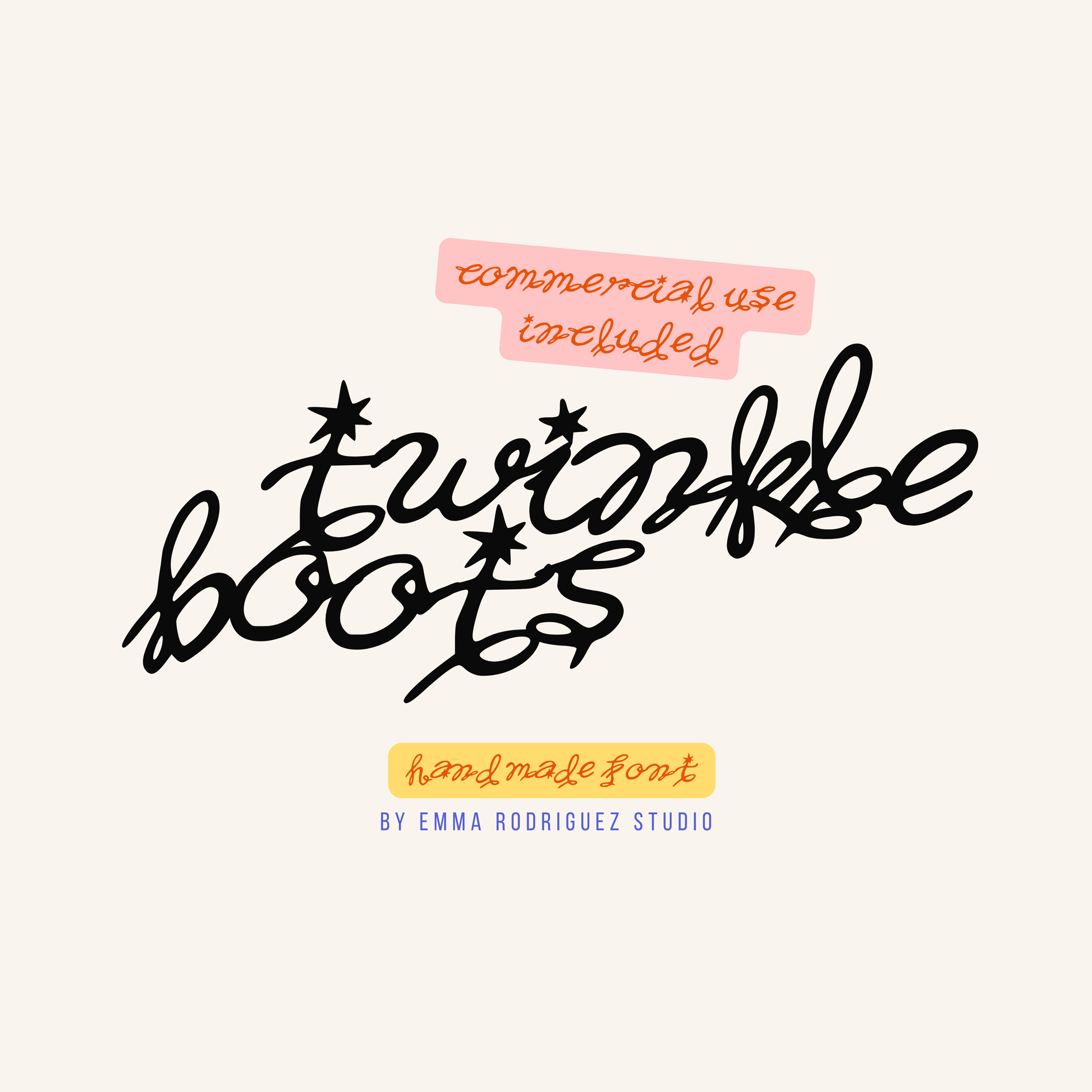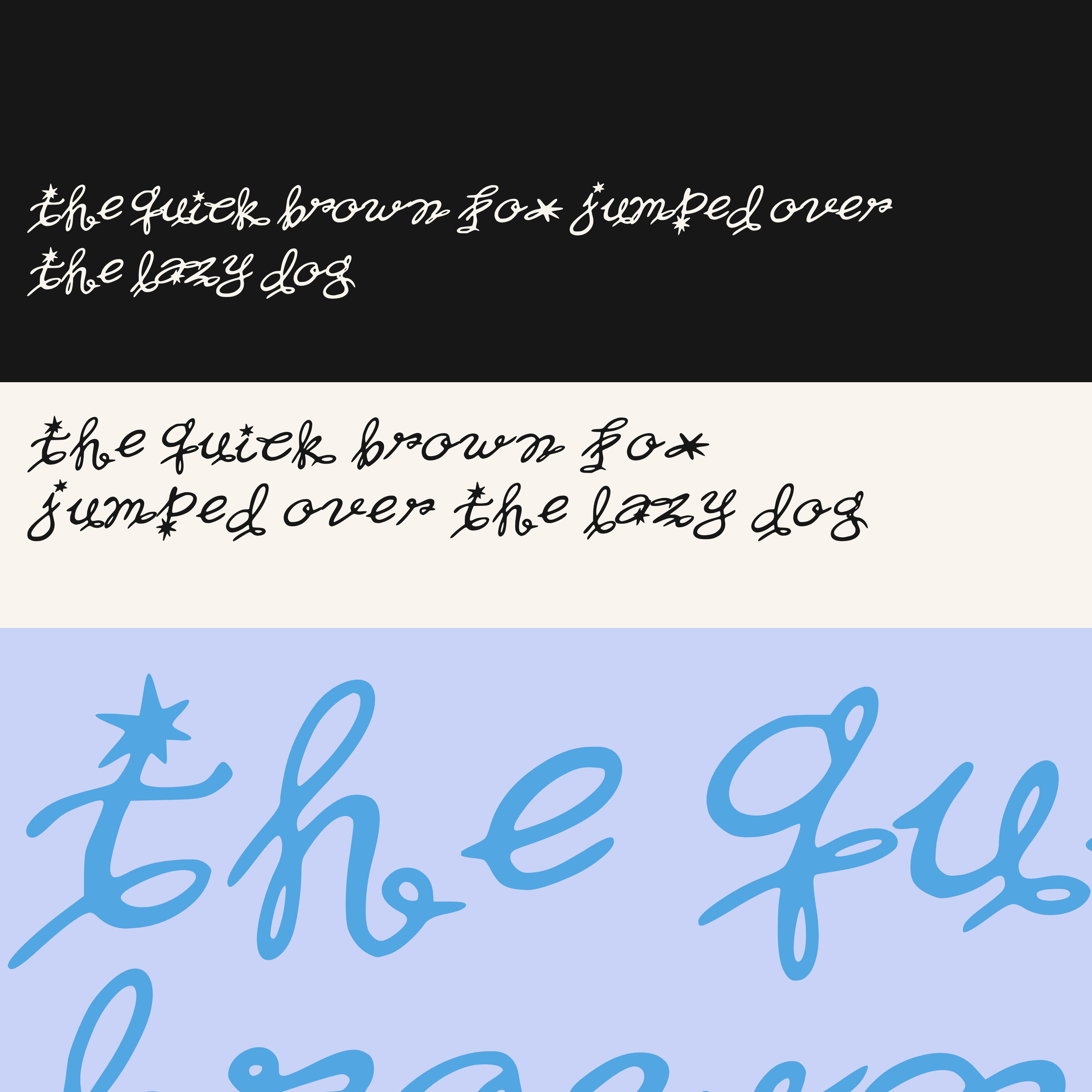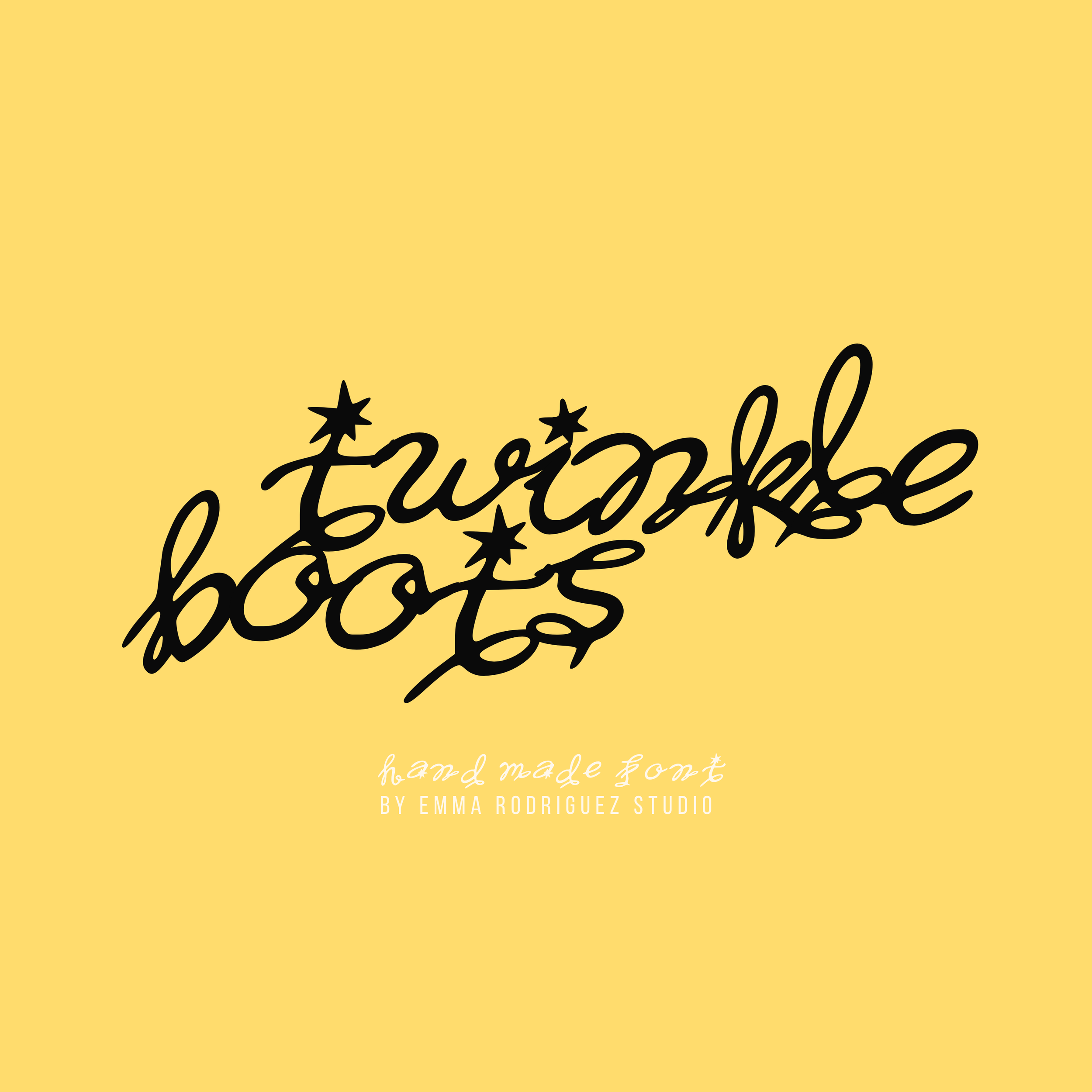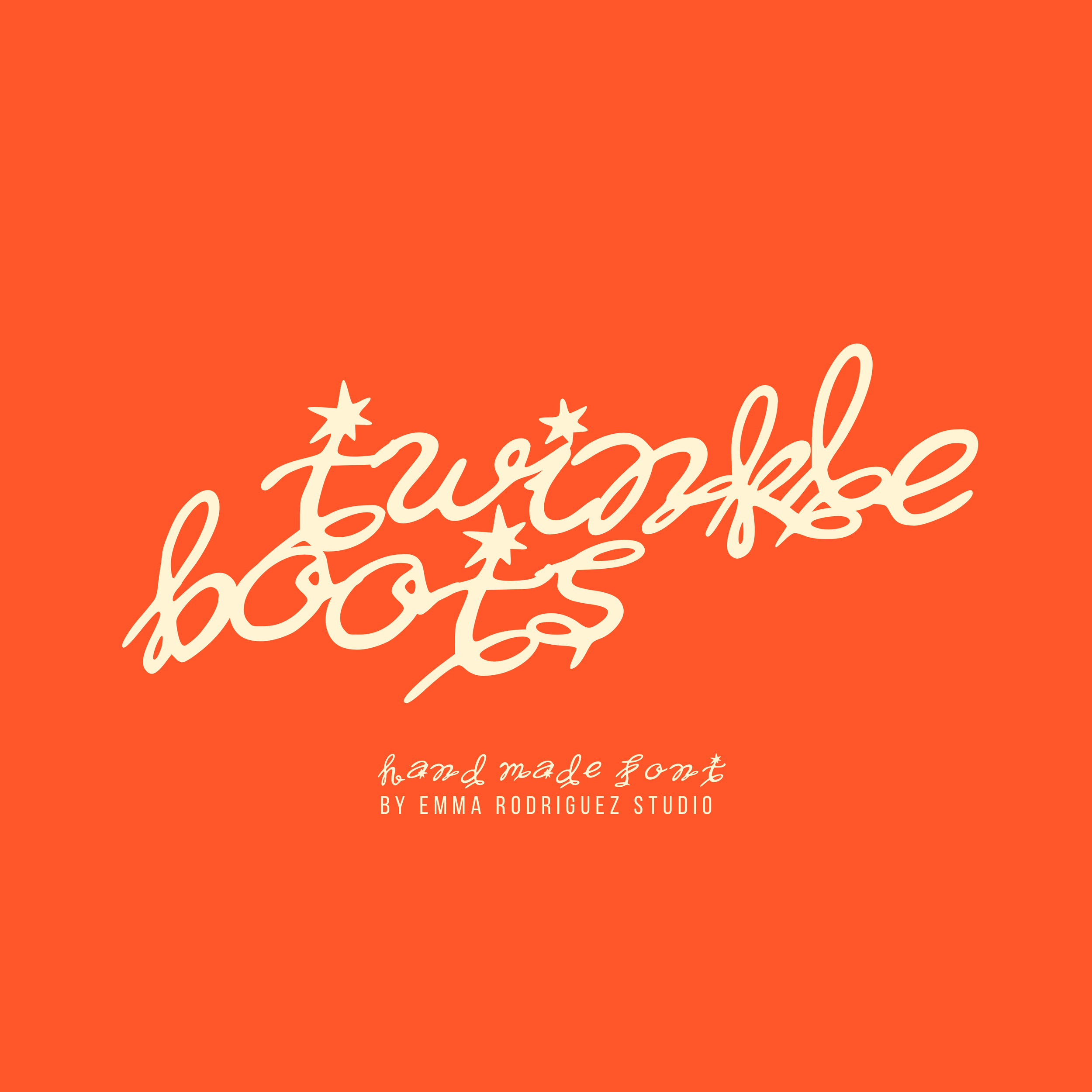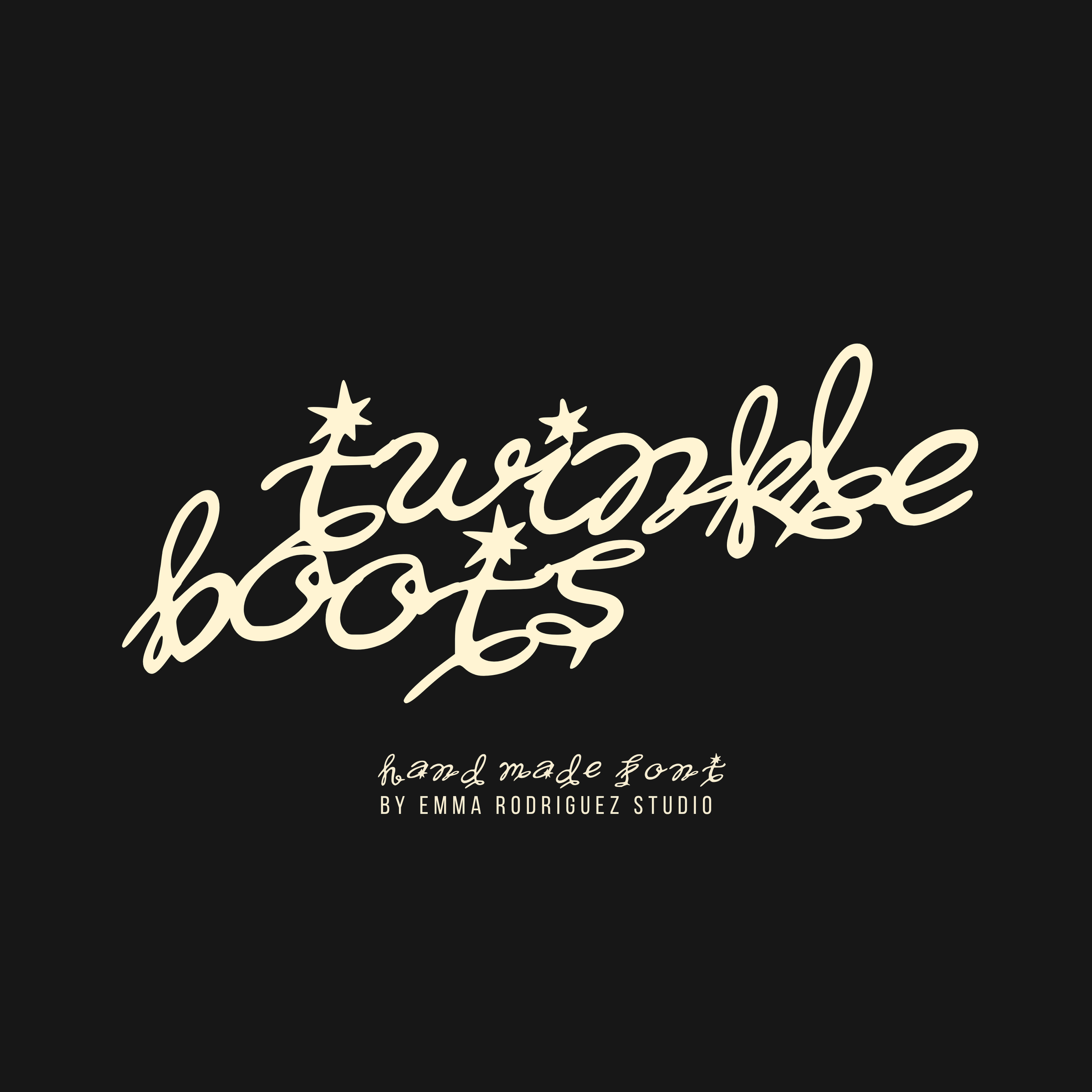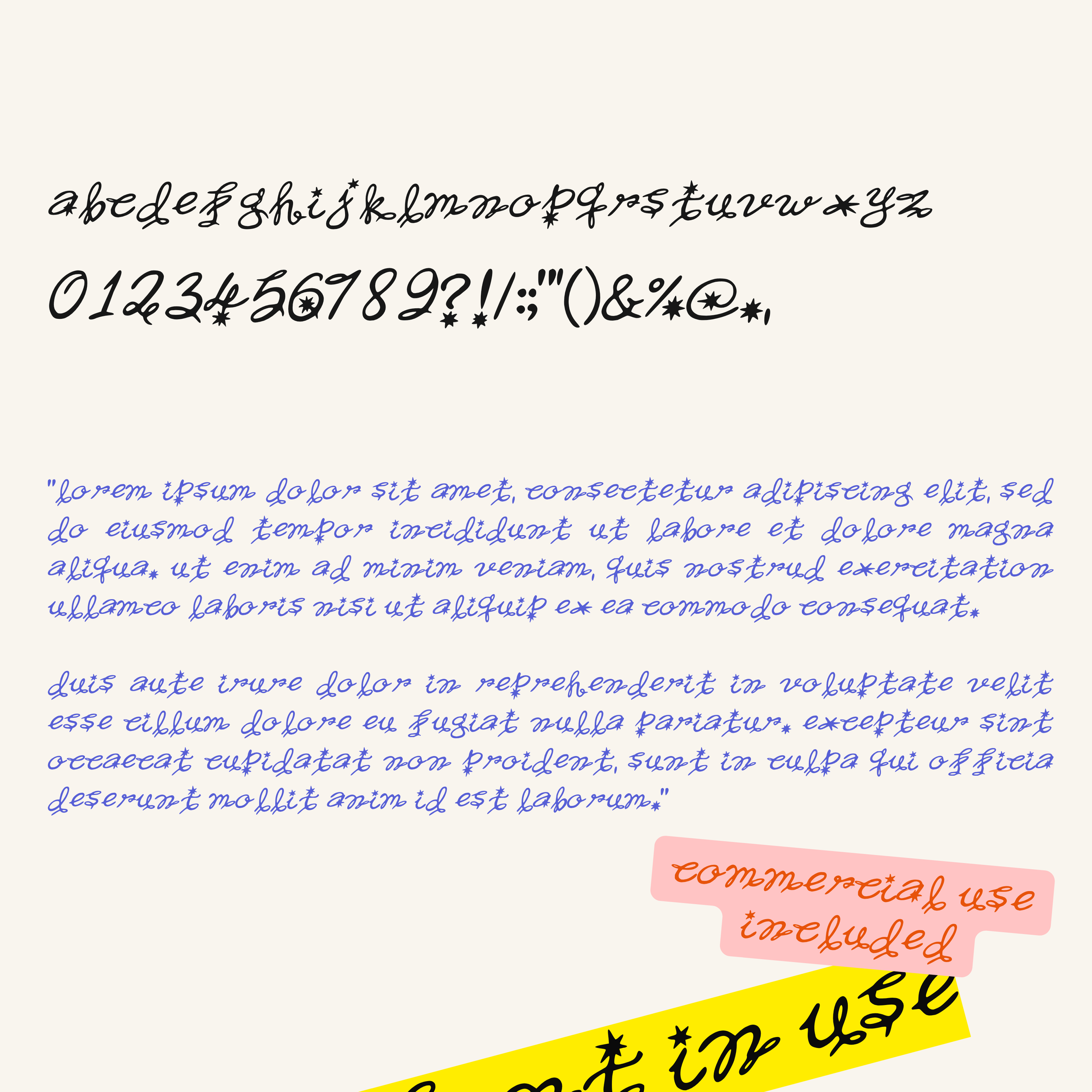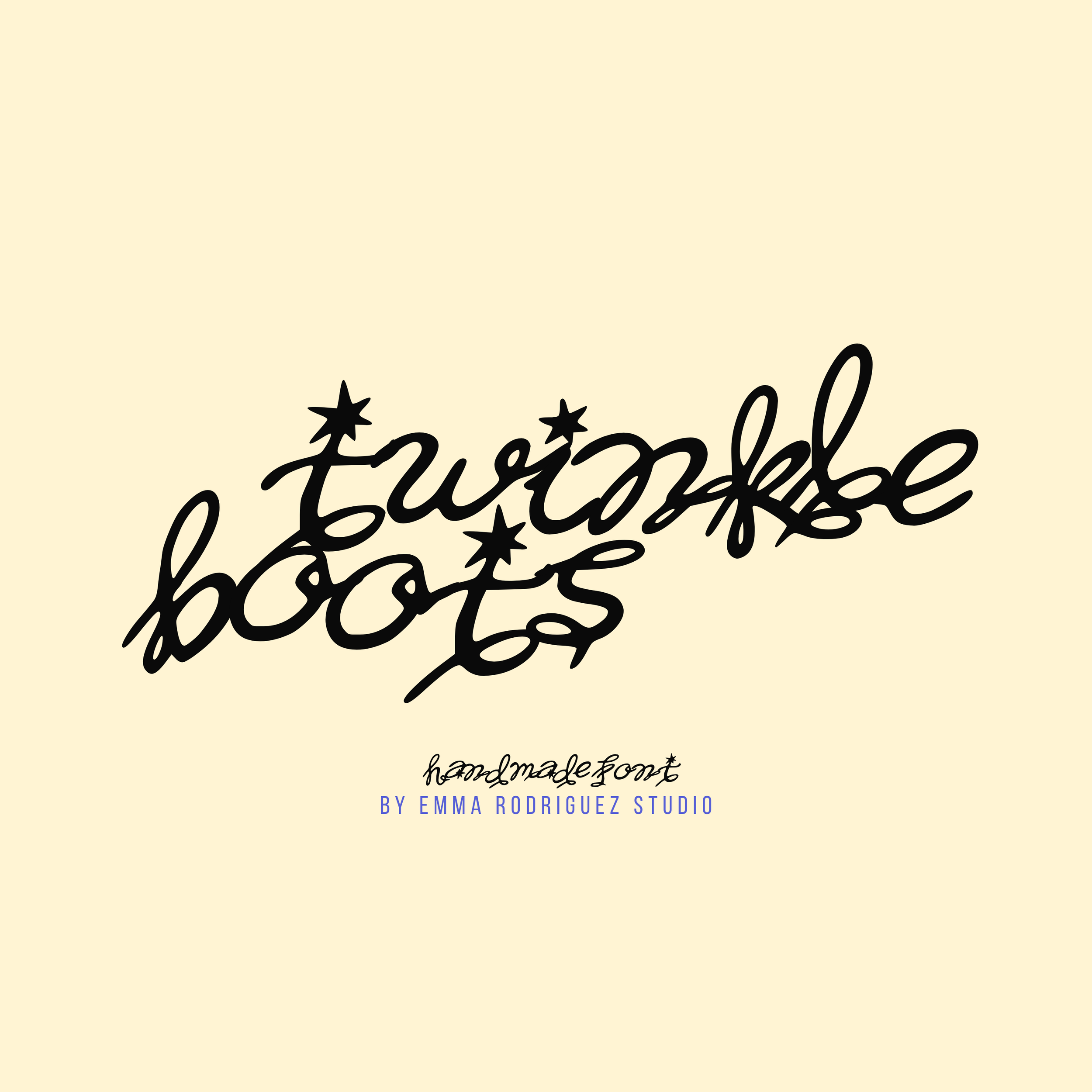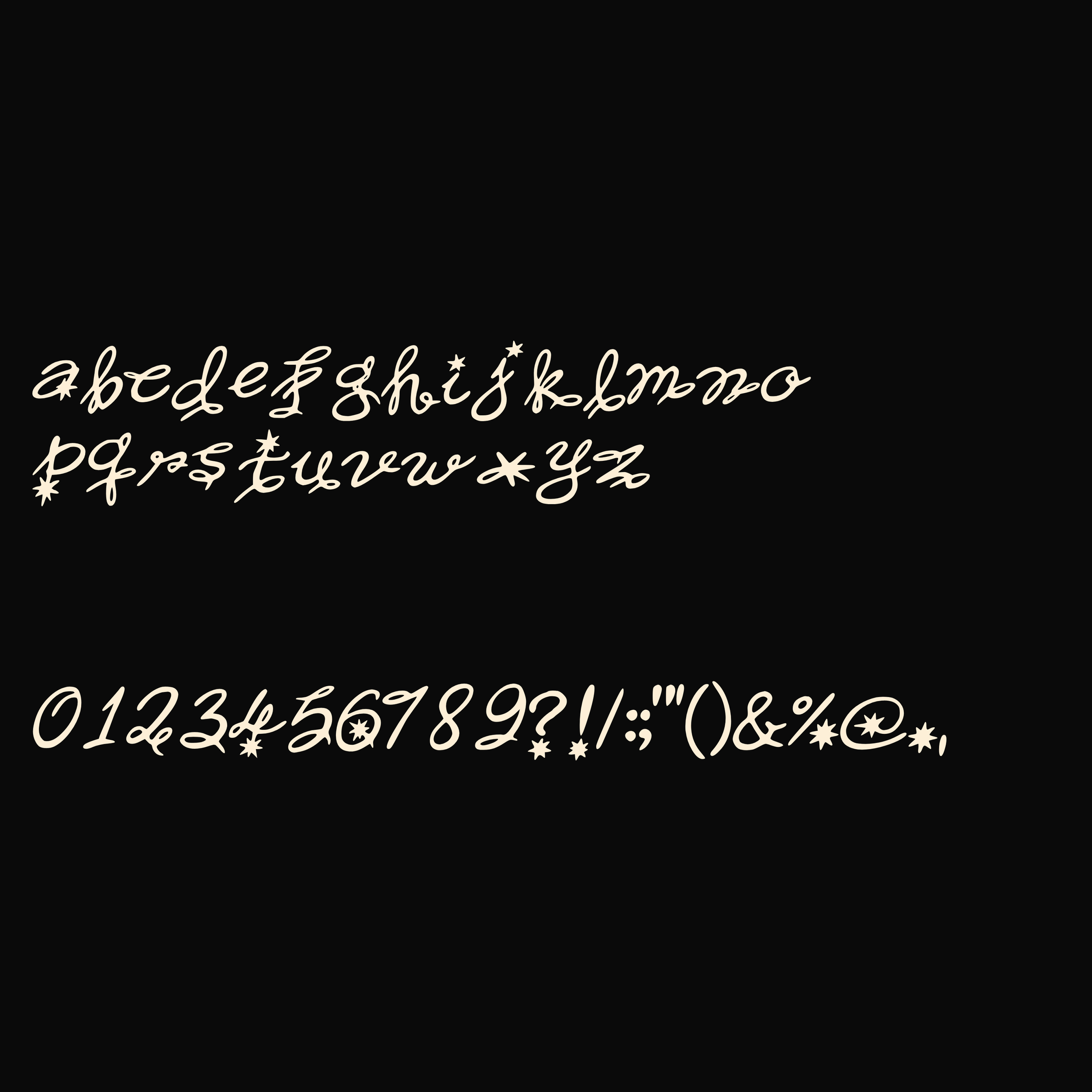
Twinkle Boots Font - Western Cosmic Handwritten Type
Meet Twinkle Boots, a messy lowercase handwritten script font with one boot firmly in the Wild West. Loose scribbled lettering, sweeping curves, pointed details, and playful star shapes give it a subtle cowboy and western spur influence without turning it into a traditional western typeface.
Everything is intentionally a little unruly. The kerning, spacing, baselines, overlaps, and letter positioning have been deliberately designed to feel spontaneous and hand drawn rather than digitally perfected. Letters may sit higher, lower, closer together, or overlap depending on the combination. That irregularity is an intentional part of Twinkle Boots and gives it its loose, edgy personality.
Some words and letter combinations may benefit from manual kerning or individual letter placement if you want a cleaner, more controlled flow. Alternatively, leave everything exactly as it lands for the full messy handwritten effect. The irregular spacing and positioning are intentional design features, not technical errors.
The combination of handwritten script, stars, pointed flourishes, and spur-like forms gives Twinkle Boots a slightly western, cowgirl feel while still working comfortably within contemporary editorial, fashion, and alternative design.
• Lowercase letters only
• Numbers and basic punctuation
Please note that Twinkle Boots is intentionally designed as a lowercase-only typeface and does not include uppercase letters.
Twinkle Boots works particularly well with current design trends around messy typography, western inspired graphics, expressive handwriting, imperfect lettering, indie editorial design, cowgirl aesthetics, and personality driven branding.